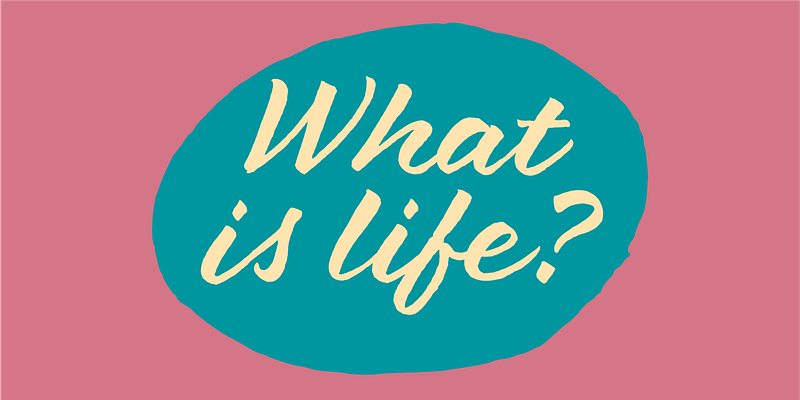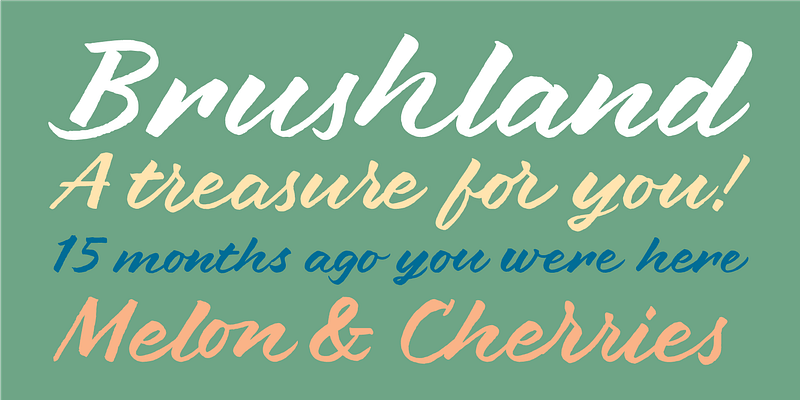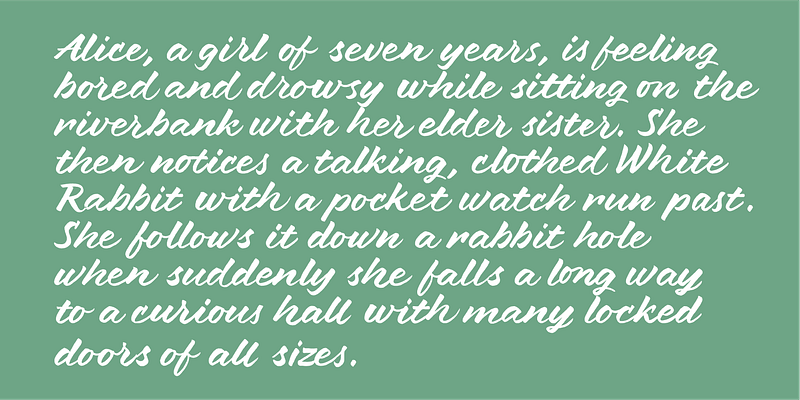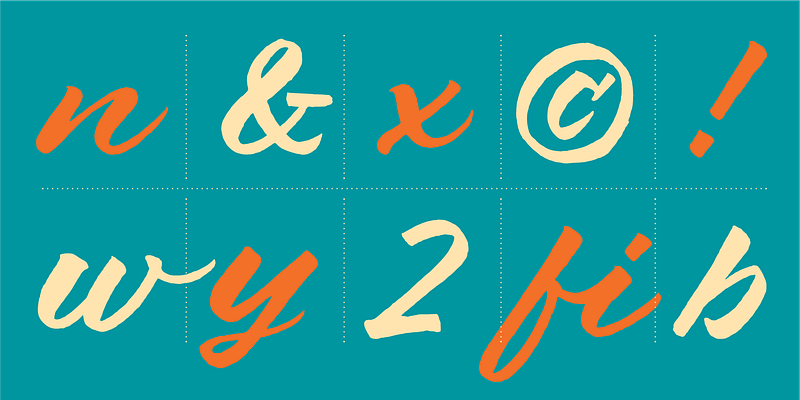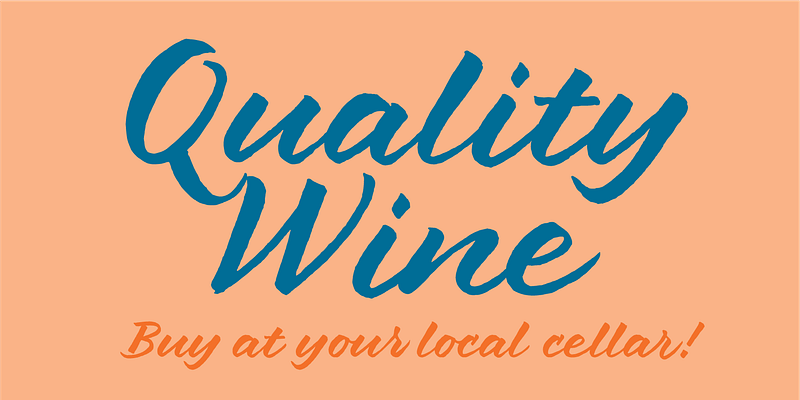
Brushland was initially born as custom project, commissioned as a typeface that could give a strong personality to a wine label, for that we agreed that a script font could be the best solution. The goal was to achieve a natural feeling as if it was really written. The project raised some questions, how natural should be this script typeface? How to simulate this writing feeling? For this, four different glyphs were drawn for the same character. This “Feature” or “Behavior”, programmed in the font, combines the variants in the sequence of 1, 2, 3 & 4 and replaces the letters at the time the words are composed, in order to avoid the repetition of glyphs. Through the “Contextual Alternates” OT Feature, the user can decide if they appear or not.